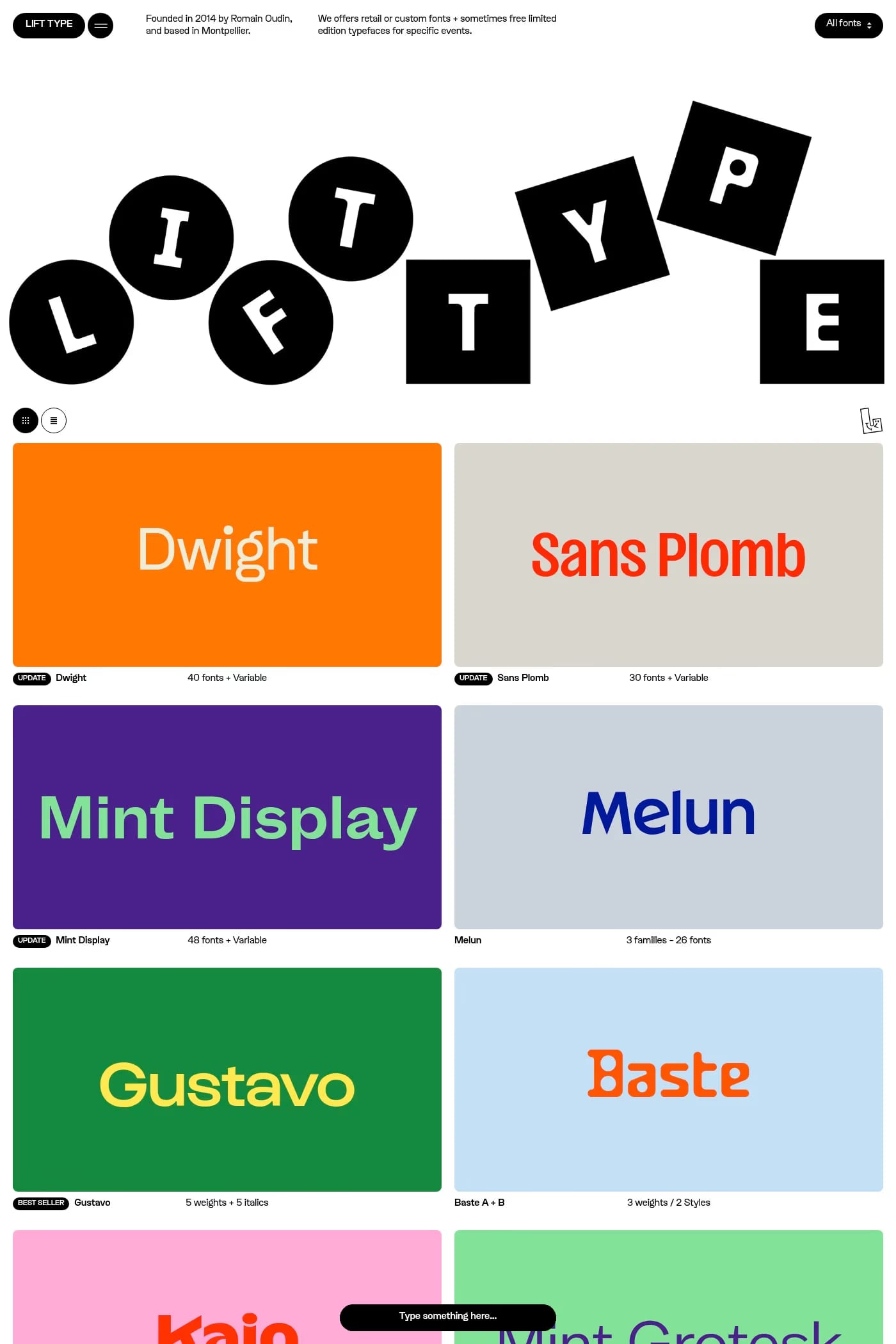
Dwight is a sans-serif typeface from Lift Type.
A new one has freshly arrived in the office! Rigorous and offbeat, “Dwight” is a geometrical sans-serif typeface with a very pronounced round shaped punctuation that recalls punched paper.